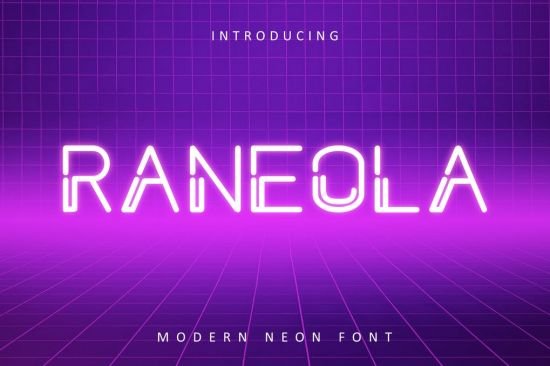
Raneola font is a modern and clean display (Serif) font. Create from our talented font designer. The design of typeface will make your design more beautiful and inspiring. This font will suitable for any project, like branding, print template, logo and etc.